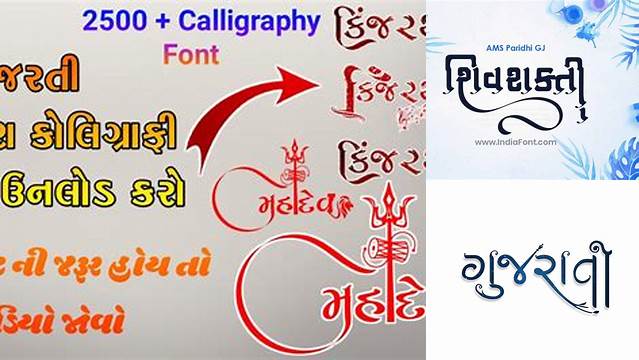
Hey guys! Are you looking to add some flair to your designs with beautiful Gujarati calligraphy fonts? You've come to the right place! In this article, we're going to dive deep into the world of Gujarati calligraphy fonts, exploring where you can find them for free download on your PC, and how to use them effectively. We'll cover everything from the basics of Gujarati calligraphy to the nitty-gritty of installing and using these fonts in your projects. So, let's get started and unleash your creative potential!
1. Introduction to Gujarati Calligraphy
Let's kick things off with a little intro to what makes Gujarati calligraphy so special. Gujarati calligraphy, guys, is more than just fancy writing; it's an art form steeped in history and culture. The Gujarati script itself is derived from the Devanagari script, which is also used for Hindi and Sanskrit. This means it has a beautiful, flowing aesthetic that's perfect for adding an elegant touch to your designs. The unique curves and strokes of the letters make it visually appealing and perfect for various creative projects.
The History and Evolution of Gujarati Script
The history of the Gujarati script is fascinating, tracing back centuries. Over time, the script has evolved, influenced by various factors, including regional styles and technological advancements in printing and writing. Understanding this history gives you a deeper appreciation for the fonts you'll be using. Gujarati calligraphy has seen numerous transformations, adapting to different mediums and artistic interpretations while preserving its core aesthetic principles. This rich history makes each font a unique piece of art.
Unique Characteristics of Gujarati Calligraphy
So, what makes Gujarati calligraphy stand out? It’s all about the rounded shapes and flowing lines. Unlike some other scripts that use sharp angles, Gujarati is known for its curves and loops. This gives it a softer, more artistic feel. The script's inherent fluidity allows for incredible creativity in font design, resulting in a wide array of styles, from traditional to contemporary. The distinctive letterforms and ligatures add a unique charm that sets Gujarati calligraphy apart.
Why Use Gujarati Calligraphy Fonts?
Now, you might be wondering, why should you even bother with Gujarati calligraphy fonts? Well, the answer is simple: they're incredibly versatile. Whether you're designing wedding invitations, creating website headers, or working on branding materials, these fonts can add a touch of sophistication and cultural relevance. Using Gujarati calligraphy fonts can elevate your design projects, making them more visually appealing and culturally resonant. These fonts bring a sense of tradition and artistry, making your work stand out.
Google Fonts for Gujarati
Google Fonts is a fantastic resource because it offers a vast library of open-source fonts, including a growing collection of Gujarati calligraphy fonts. The best part? They're all free to use, even for commercial projects! Plus, Google Fonts makes it super easy to embed these fonts directly into your website. Google Fonts offers a streamlined way to integrate these beautiful fonts into your web projects, enhancing readability and visual appeal. The platform's user-friendly interface and clear licensing terms make it a go-to for designers and developers alike.
Font Squirrel and Dafont
Font Squirrel and Dafont are two other popular websites where you can find a wide range of free fonts. They both have a good selection of Gujarati calligraphy fonts, but it's important to double-check the licensing terms for each font. Some fonts might be free for personal use but require a license for commercial use. These sites are constantly updated with new fonts, providing a rich and diverse selection for your creative projects. Make sure to read the licensing information carefully to avoid any legal issues.
Open-Source Font Repositories
Don't forget about open-source font repositories! These are often community-driven projects where designers share their fonts freely. Websites like GitHub can be goldmines for unique Gujarati calligraphy fonts that you won't find anywhere else. Exploring these repositories can lead to the discovery of hidden gems and unique typefaces that can give your designs a distinctive edge. Open-source fonts often come with flexible licensing, making them suitable for a wide range of projects.